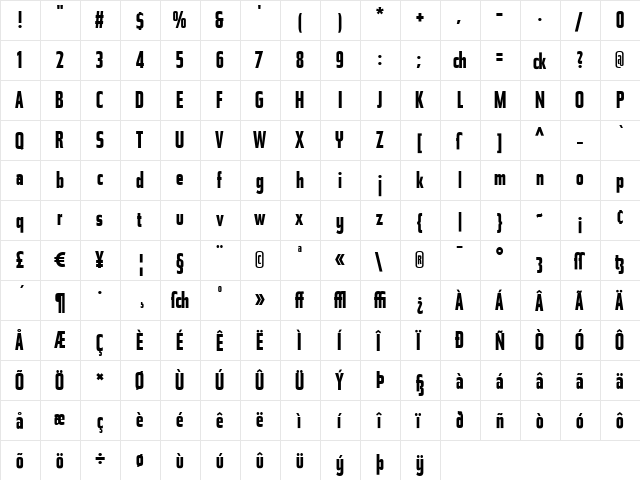
Topic Bold
Design Context for Topic Typeface
Topic takes a measured approach to typography — its balanced proportions and neutral character make it a reliable workhorse for both digital and print work. The heavy weight commands attention and anchors typographic hierarchies.